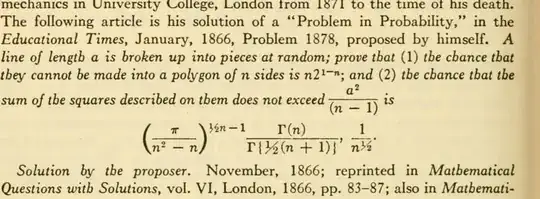
This question extends the one here: An Exquisite Mathematical Font by including the question for constructing a replica of the fonts and symbols included there.
The question is, can a set of LaTeX packages be used to replicate old-timey font-typefaces like:enter image description here
and
such that the text and boldness fit the second image while the mathematics in the first image is preferable, and the integral symbol looks like the one advertised in the previous question (the link above has images); and where the sums look like
enter image description here.
I've only gotten as far as this example: enter image description here
using Steven B. Segletes' answer from How to Obtain a Bold Upright Integral Sign?. However, the font text most desired would be like what @Sebastiano did in my previous question (amazing job), which is:
enter image description here because many of the letters like the "n" and the "d" and "a" match while other letters are very close.
For the bold sum you can use the answers of @egreg: https://tex.stackexchange.com/questions/117076/how-can-i-get-bold-greek-letters-with-mathptmx and for the integral to me seem very closer to the egreg's answer. – Sebastiano Apr 05 '21 at 19:45
For the sign integral there are two very nice answers: one it is of Steven B. Segletes: https://tex.stackexchange.com/questions/222243/how-to-obtain-a-bold-upright-integral-sign – Sebastiano Apr 05 '21 at 19:52